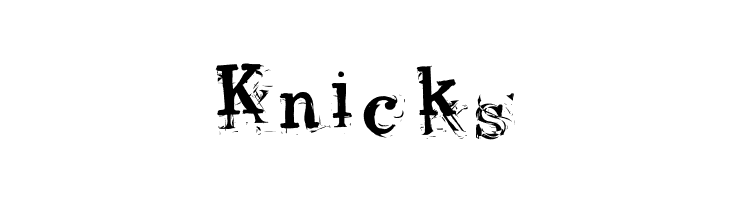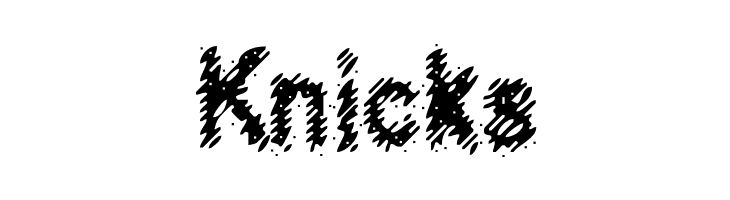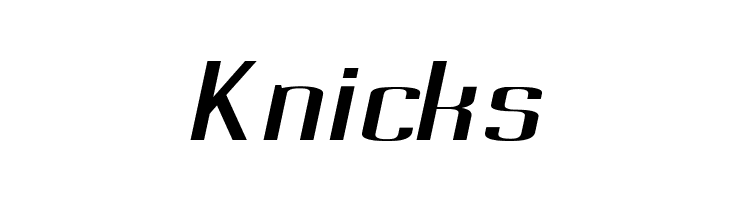
A distressed, grunge-style font with bold, irregular strokes and a textured appearance.
A sleek, modern oblique font with sharp angles and a dynamic appearance.
A bold, distressed font with irregular edges and a hand-crafted appearance.
A bold, rounded, and playful font with a chunky, bubble-like appearance.